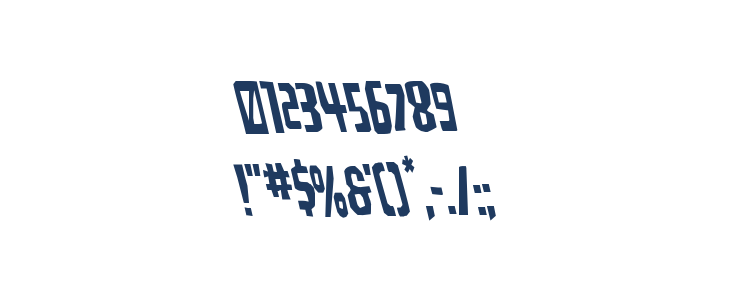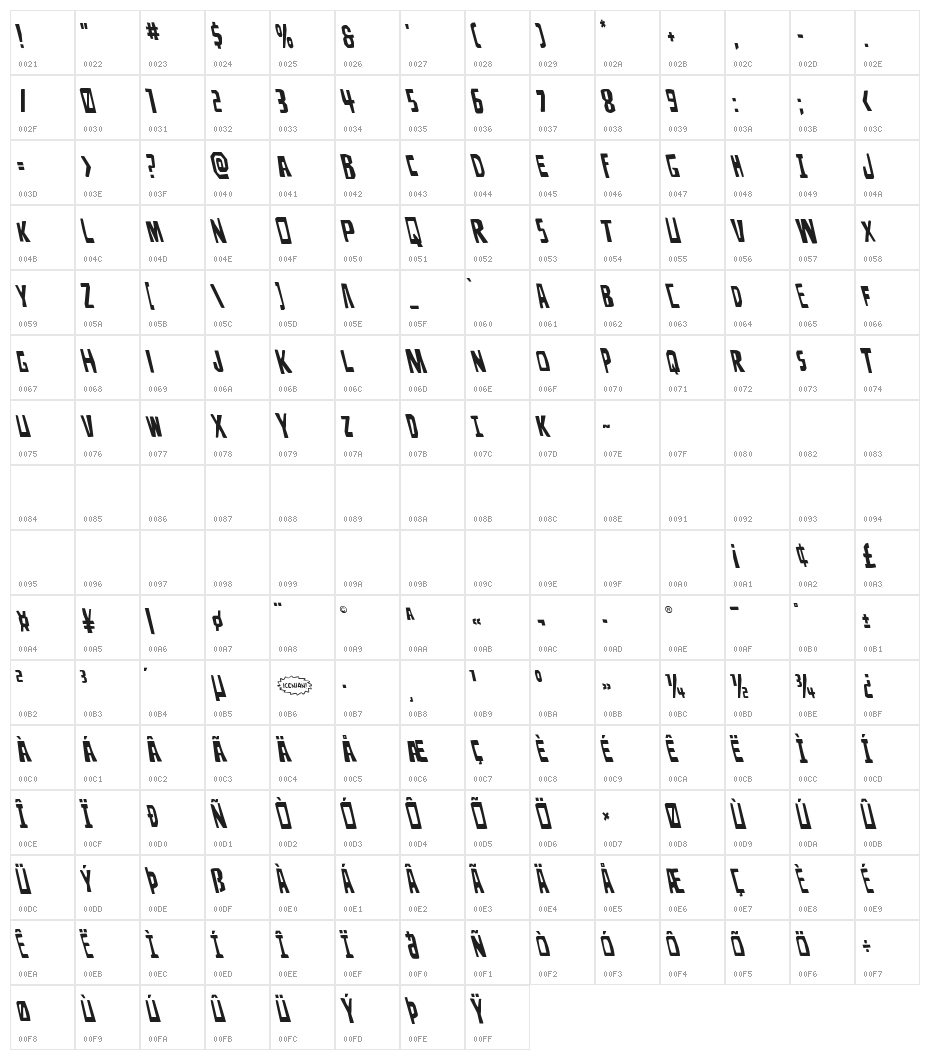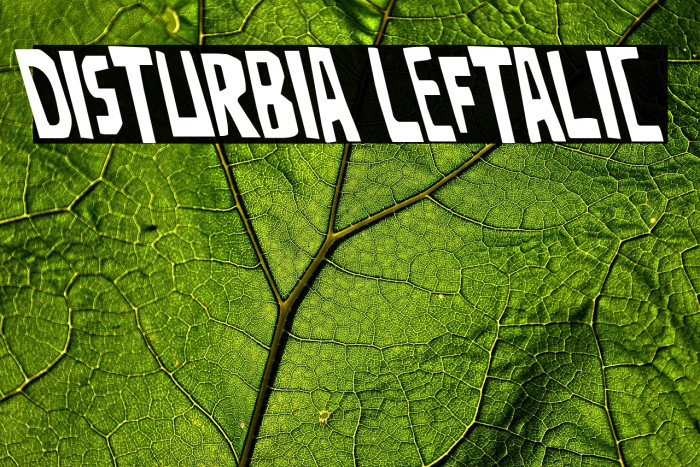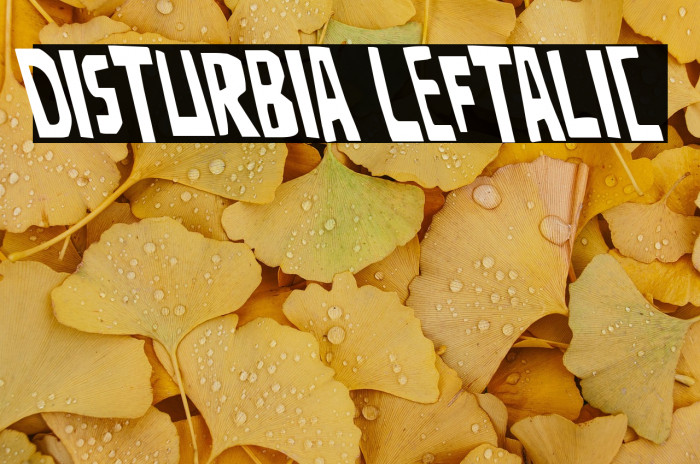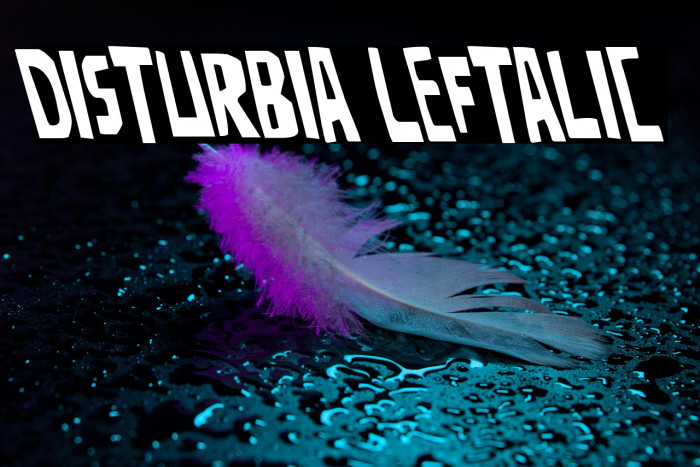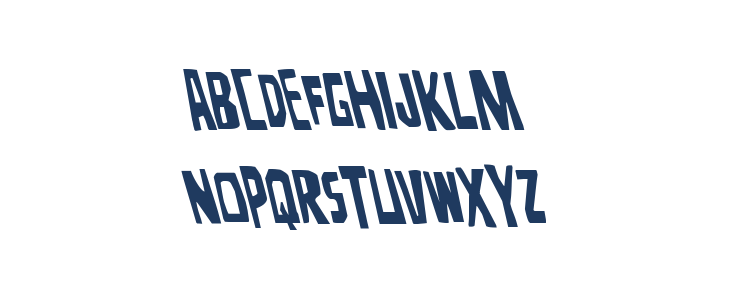
Disturbia Leftalic Font
Disturbia Leftalic Description
This font features a bold and dynamic style with a distinct leftward slant, giving it a sense of motion and energy. The characters are uppercase and lowercase, with numerals and a variety of special symbols. The strokes are thick and consistent, providing a strong visual impact. The angular design and sharp edges contribute to a modern and edgy appearance, making it suitable for attention-grabbing headlines or creative projects. The spacing between characters is tight, enhancing the compact and cohesive look of the text.
| Proposed Projects | Ideal for posters, music album covers, video game titles, and branding that requires a bold and dynamic presence. |